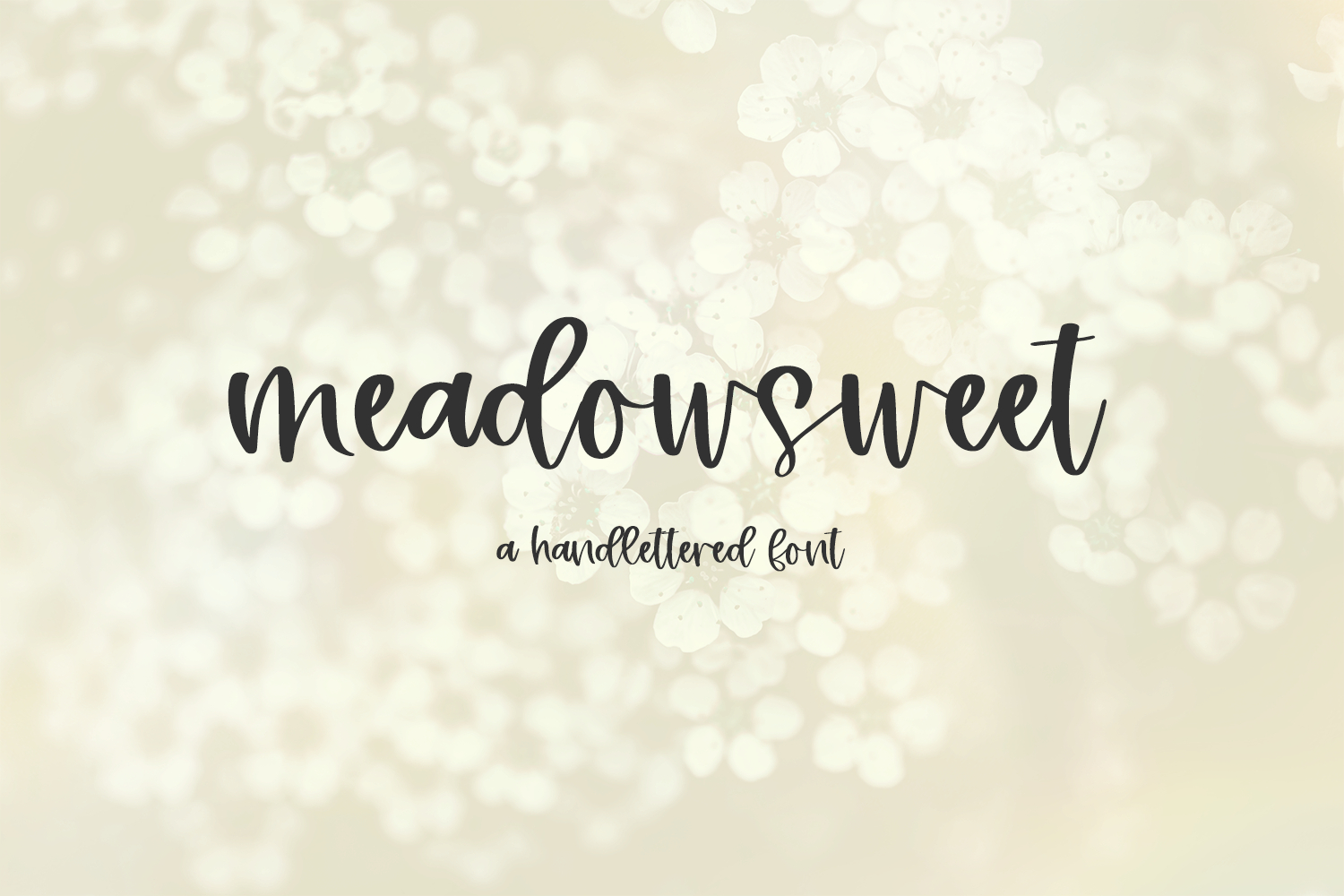
Introducing Meadowsweet, a modern calligraphy script.
Meadowsweet is best for:
- feminine, crafty projects with your Cricut or Silhouette machine, or your SVG design business
- farmhouse decor and crafts
- website design + website accents, blog design
- feminine graphic tee shirt design & other apparel